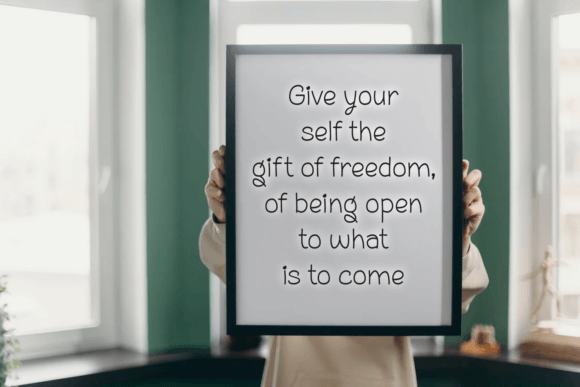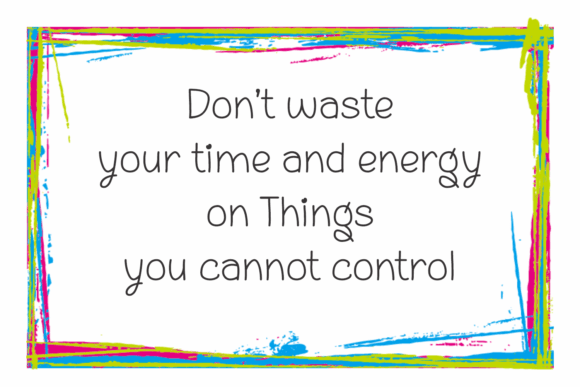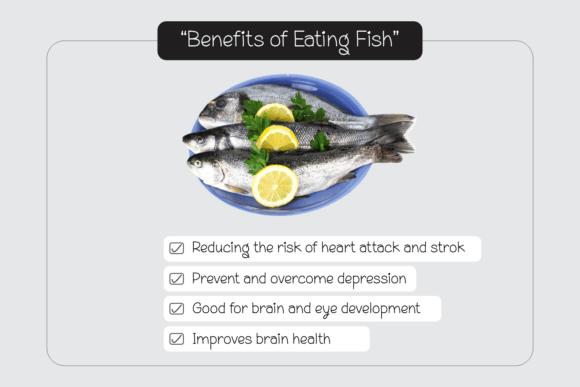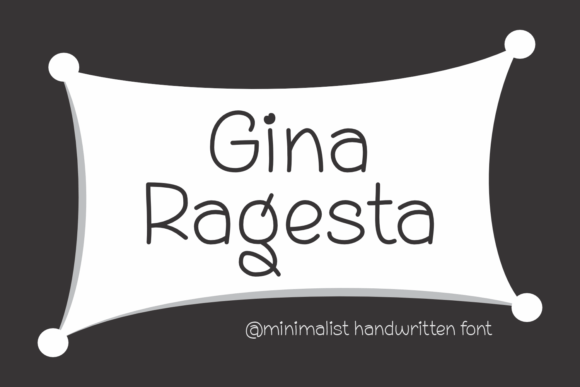
Introduction to Gina Ragesta Font
Gina Ragesta is a beautiful minimalist handwritten font.
Cute and friendly, this font will suit a wide range of creative projects It is perfect for text paragraphs, business cards, quotes, websites, printables, and many more.
Why Choose Gina Ragesta Font?
Gina Ragesta Font offers exceptional quality and versatility, making it a valuable addition to your design toolkit. Whether you’re creating for personal projects or commercial use, Gina Ragesta Font delivers professional results.